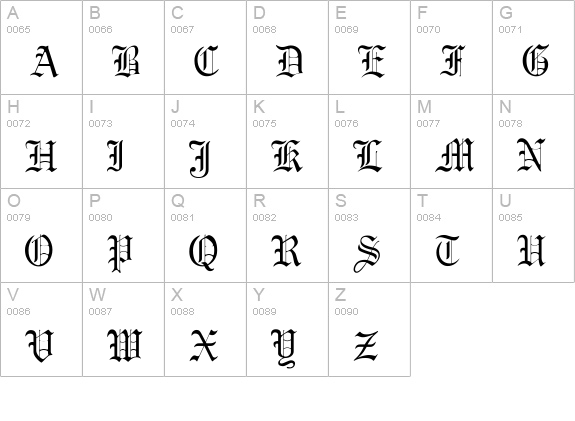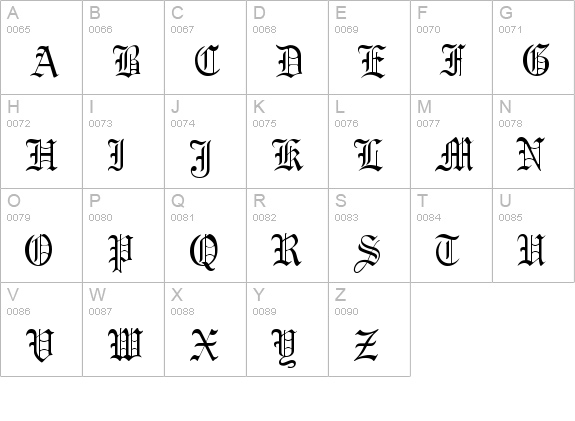
GregorianFLF is a free for personal use font in the Foreign Look > Old English category. It has been downloaded 3 times and is available for Windows, Mac and Linux.
The GregorianFLF font is a beautifully crafted typeface that exudes elegance and sophistication. With its classic and timeless design, it is perfect for adding a touch of refinement to any project. This font features intricate details and graceful curves, making it a truly eye-catching choice. The best part about the GregorianFLF font is that it is completely free! That's right, you can download this stunning font at no cost from FontsMarket.com. Whether you are a professional designer or a casual user, this font is readily available for you to enhance your creative endeavors. With its versatile nature, the GregorianFLF font can be used for a wide range of applications. From logo designs to invitations, advertisements, and everything in between, this font will bring a touch of sophistication and elegance to your projects. The GregorianFLF font is designed with readability in mind. Its well-balanced letterforms ensure that your text will be easy to read, even at small sizes. This font is ideal for both print and digital media, making it a perfect choice for websites, blogs, and social media posts. Whether you are a designer looking to elevate your work or an individual seeking a font that exudes class, the GregorianFLF font is the ideal choice. Don't miss out on this opportunity to enhance your projects with this free font. Download GregorianFLF today from FontsMarket.com and let your creativity soar!